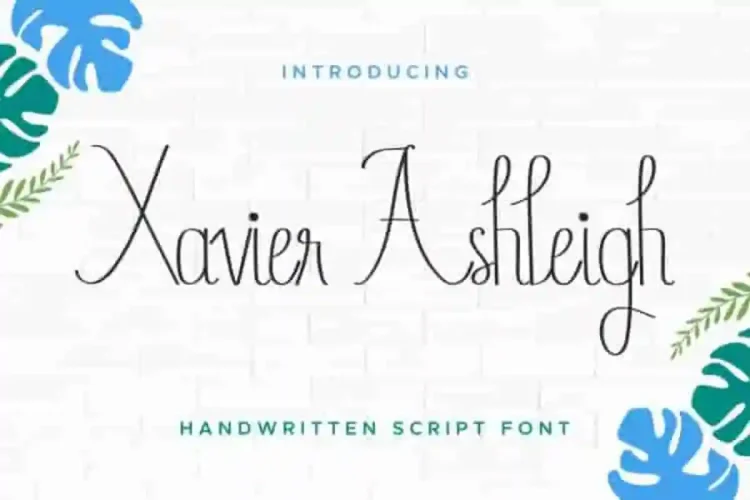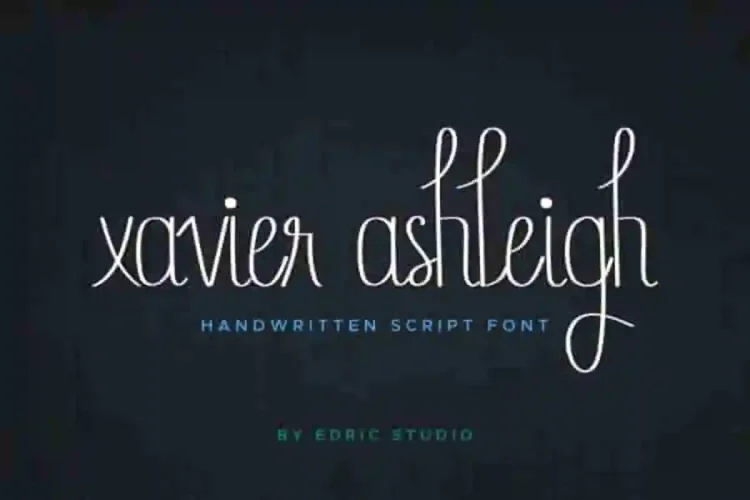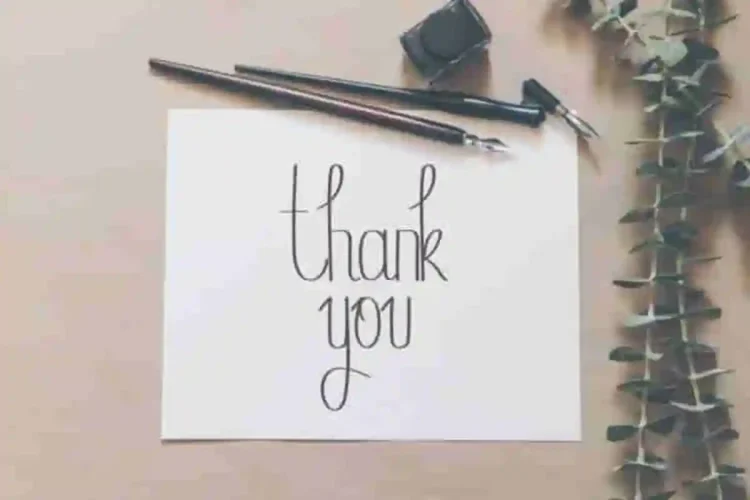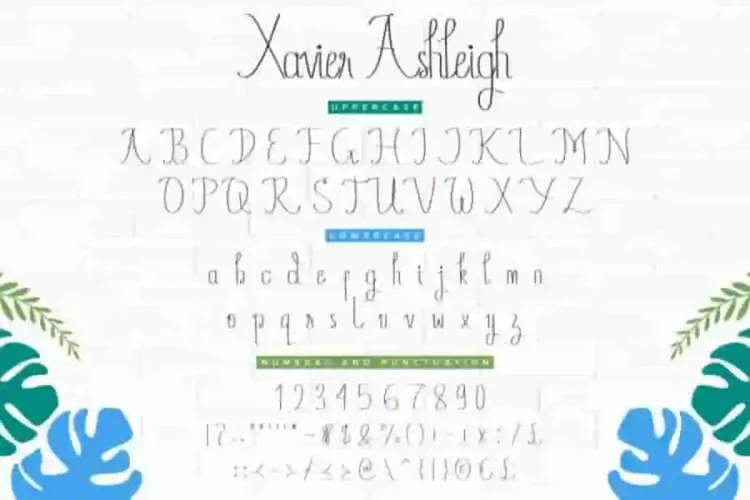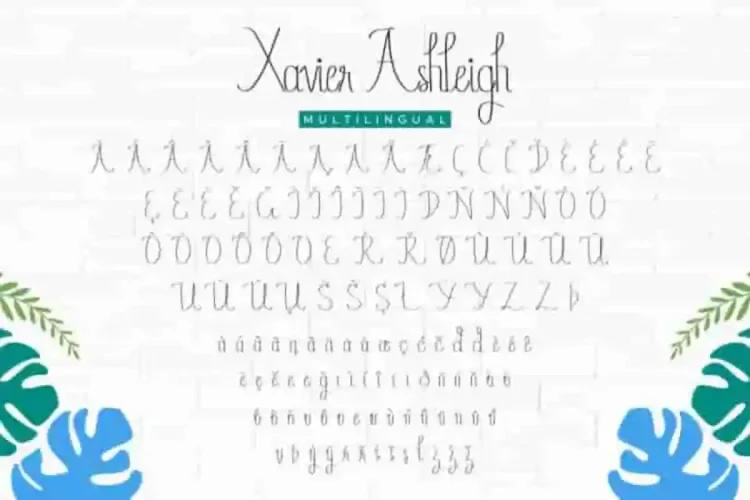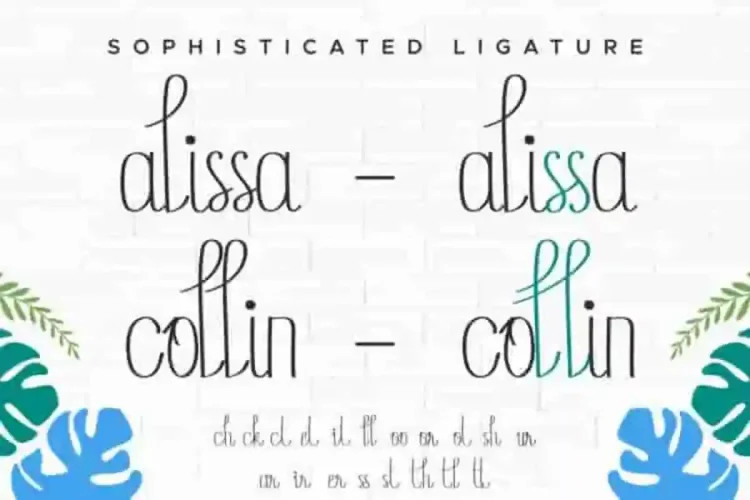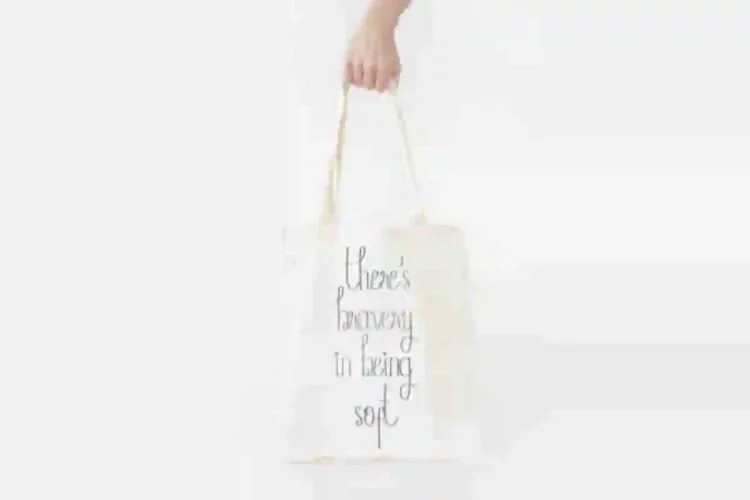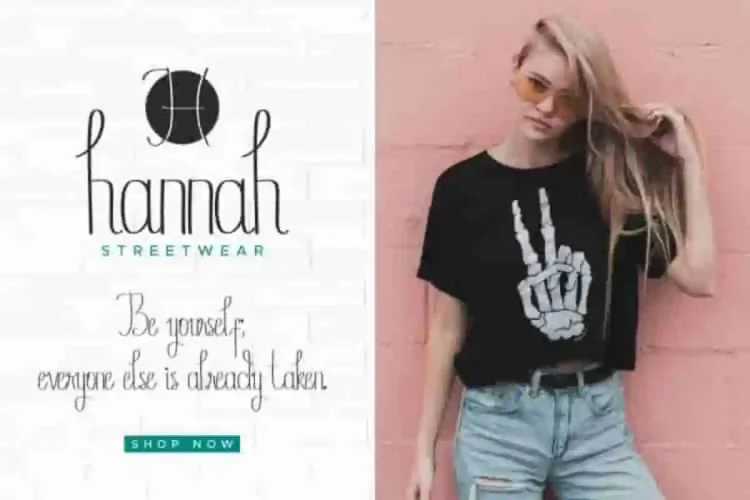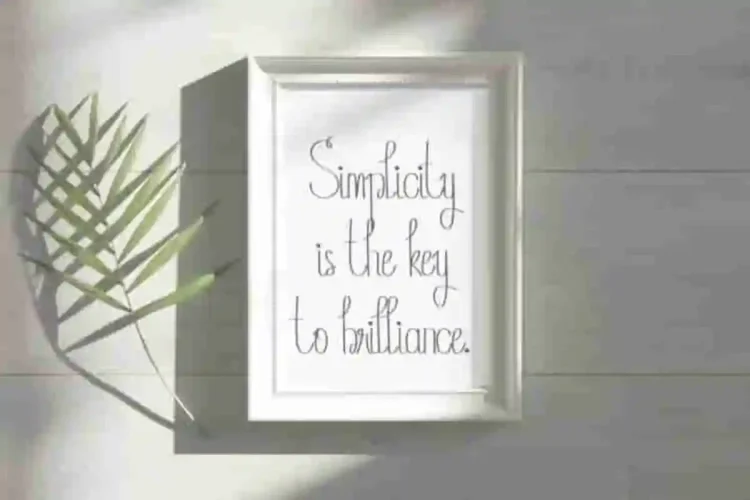
Xavier Ashleigh Calligraphy Font
Introducing our newest font from our lovely artist : Xavier Ashleigh Calligraphy Font
This is a Calligraphy font, handcrafted from our Studio here in, Indonesia. The artists/designers of this beautiful tyeface is Widiyanti and Suci.
Xavier Ashleigh Calligraphy Font is an exclusive calligraphy script typeface with brush style. This font has a stunning characters set, perfectly managed with well spaced and kerning.
Xavier Ashleigh Calligraphy Font will be great for any projects including : branding, logo, stationery, business card, signage, flyer, brochure etc. Almost all industries will be match for this typeface: wedding, events, real estate, architect, law firm, florist, gardening, makeup artist, travel, hotel, musician etc